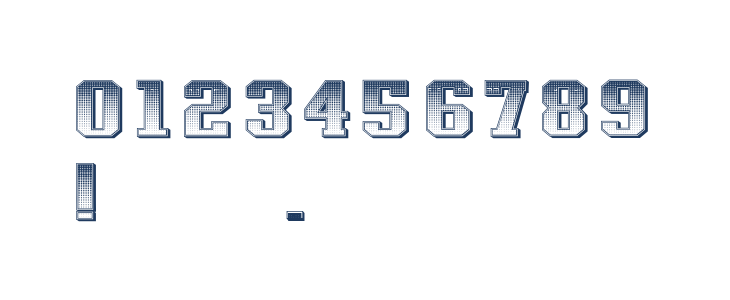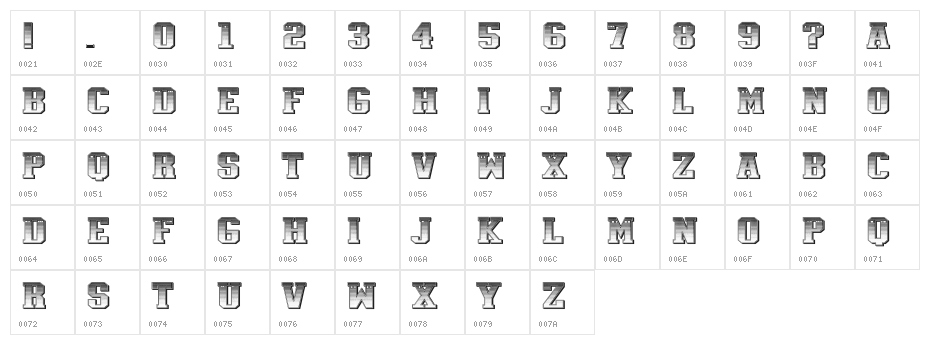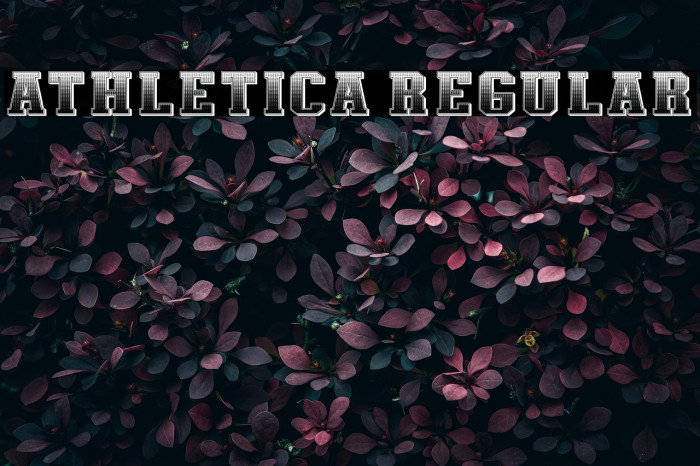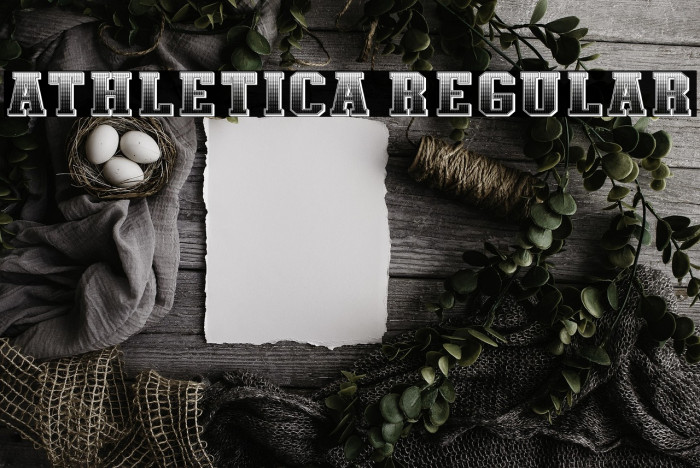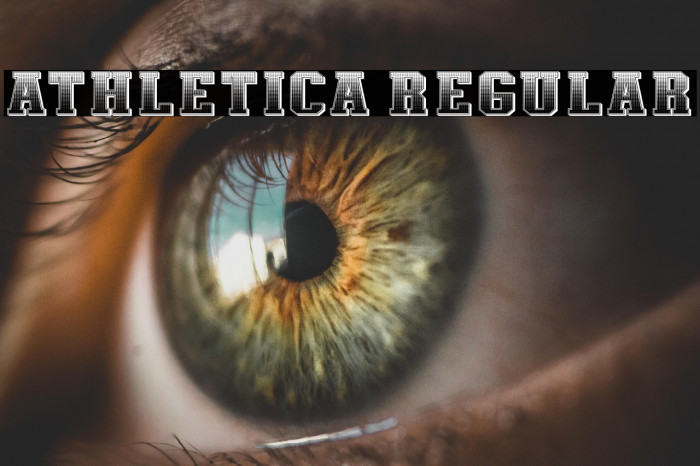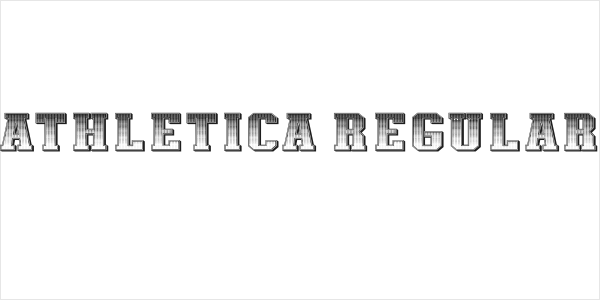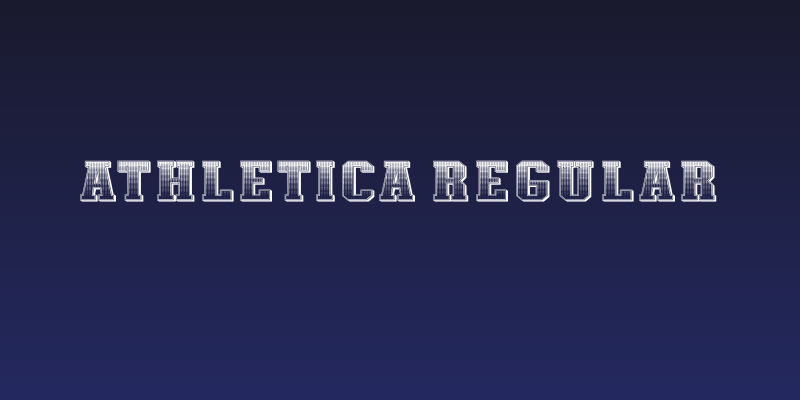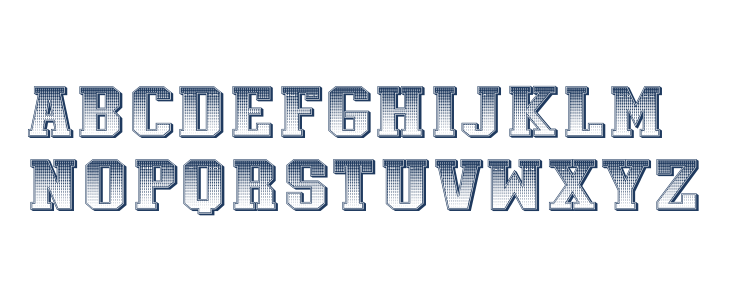
Athletica Regular Font
Athletica Regular Description
This font features a bold, athletic style with a strong presence. The characters are blocky and robust, reminiscent of traditional sports jerseys or varsity lettering. Each letter is outlined with a shadow effect, adding depth and a three-dimensional appearance. The internal detailing includes a dotted pattern, enhancing its decorative nature. The font is designed to make a statement, suitable for projects that require a bold and energetic look. Its structured form and unique detailing make it ideal for eye-catching designs.
| Proposed Projects | Ideal for sports branding, team logos, event posters, and merchandise design. |